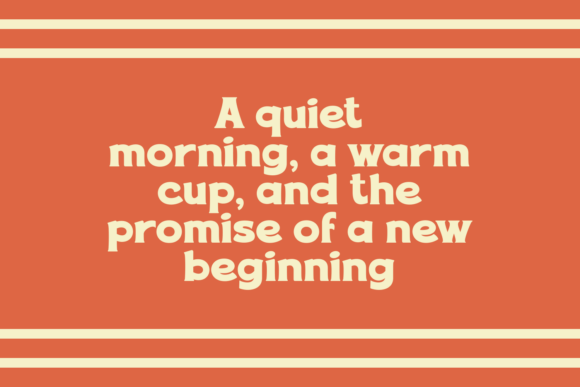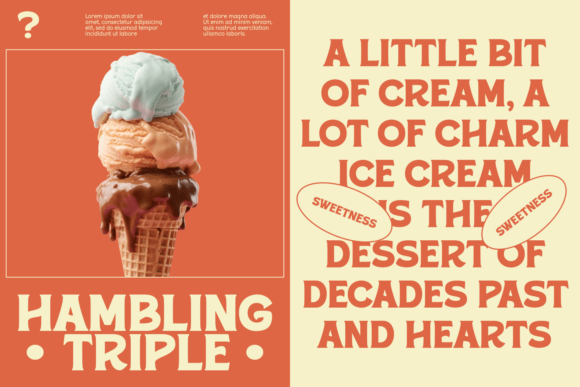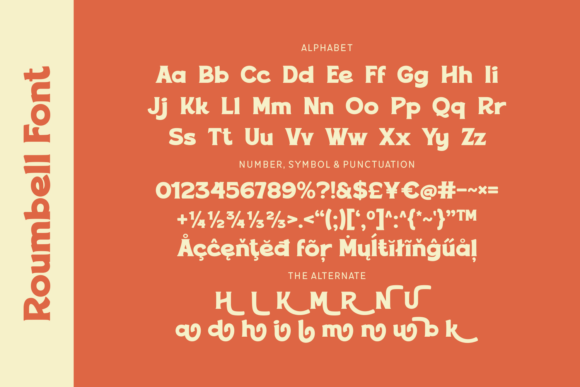
Introduction to Roumbell Font
Roumbell is a retro-inspired serif font with chunky curves and a playful vintage soul.
Great for nostalgic branding, poster design, apparel, and logos, it brings back the bold spirit of the ’70s and ’80s .
Key Features of Roumbell Font